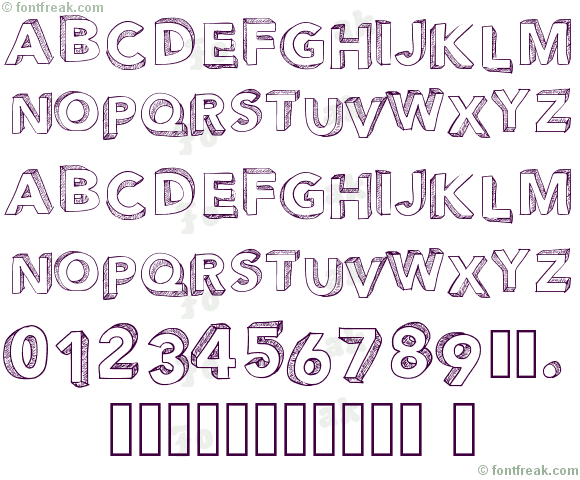
PWPerspective
PWPerspective by Peax Webdesign is a distinctive display font that beautifully blends creativity with a playful touch. This font is characterized by its unique hand-drawn aesthetic, featuring bold and exaggerated letterforms that evoke a sense of whimsy and originality. The stroke weight varies, giving the font a dynamic appearance, while the contrasting lines and shading create a three-dimensional effect that draws attention. The spacing between the letters is thoughtfully designed to ensure readability while maintaining a lively, artistic vibe.
PWPerspective is ideal for a range of specific use cases, making it a versatile choice for various projects. Graphic designers can utilize it for eye-catching movie posters, where its playful nature can help convey a fun and inviting theme. Small business owners might find it perfect for restaurant menus, adding a unique flair that enhances the overall dining experience. Additionally, it can be used for children's book covers, where the fun and friendly style resonates well with young audiences. Content creators can also leverage this font in social media graphics, making their posts more engaging and visually appealing.
The target audience for PWPerspective includes graphic designers, small business owners, and content creators who seek to infuse their projects with a creative and playful element. This font is particularly suited for those who want to make a statement and stand out in a competitive market.